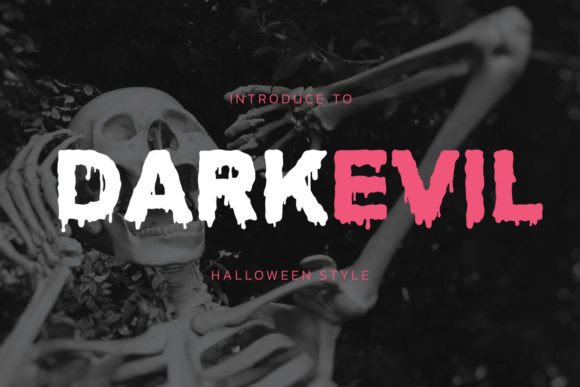
Unleash the eerie charm of Halloween with Darkevil Font, a spine-tingling display font that oozes horror and intrigue. Crafted by the ingenious minds at FONTNDA, this font stands as a testament to the power of darkness, transforming your designs into captivating tales of the supernatural.
With its dripping and solid styles, Darkevil Font seeps into your creations, adding an ominous allure that sends shivers down the spine. Picture your posters, packaging, banners, and apparel adorned with this font, conjuring an atmosphere of mystery and dread that leaves an indelible mark on all who behold it.
Darkevil Font is the perfect companion for unleashing your creativity during the Halloween season. Its dark aesthetics lend themselves effortlessly to invitations, flyers, and social media posts, creating a haunting ambiance that draws your audience into a world of shadows and secrets.
But Darkevil Font's versatility extends beyond the realm of Halloween. Its dripping style evokes a sense of urgency, perfect for conveying time-sensitive messages or creating a sense of suspense. The solid style, with its bold and imposing presence, adds an air of authority and power to your designs.
Imagine your logos, branding, and marketing materials imbued with the captivating energy of Darkevil Font. Let its dark allure captivate your audience, leaving them spellbound and eager for more.
Take your designs to the next level with Darkevil Font. Embrace the darkness, let your creativity soar, and weave tales of horror and intrigue that will leave your audience spellbound.